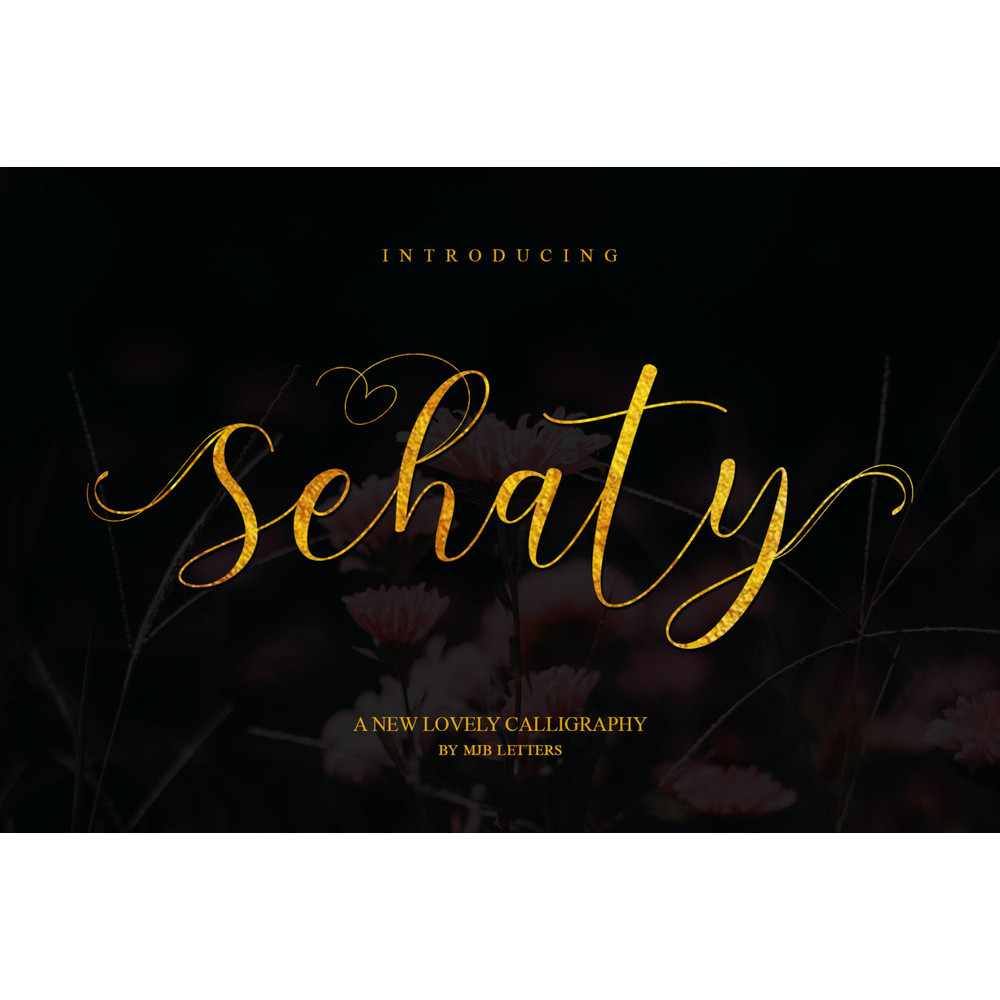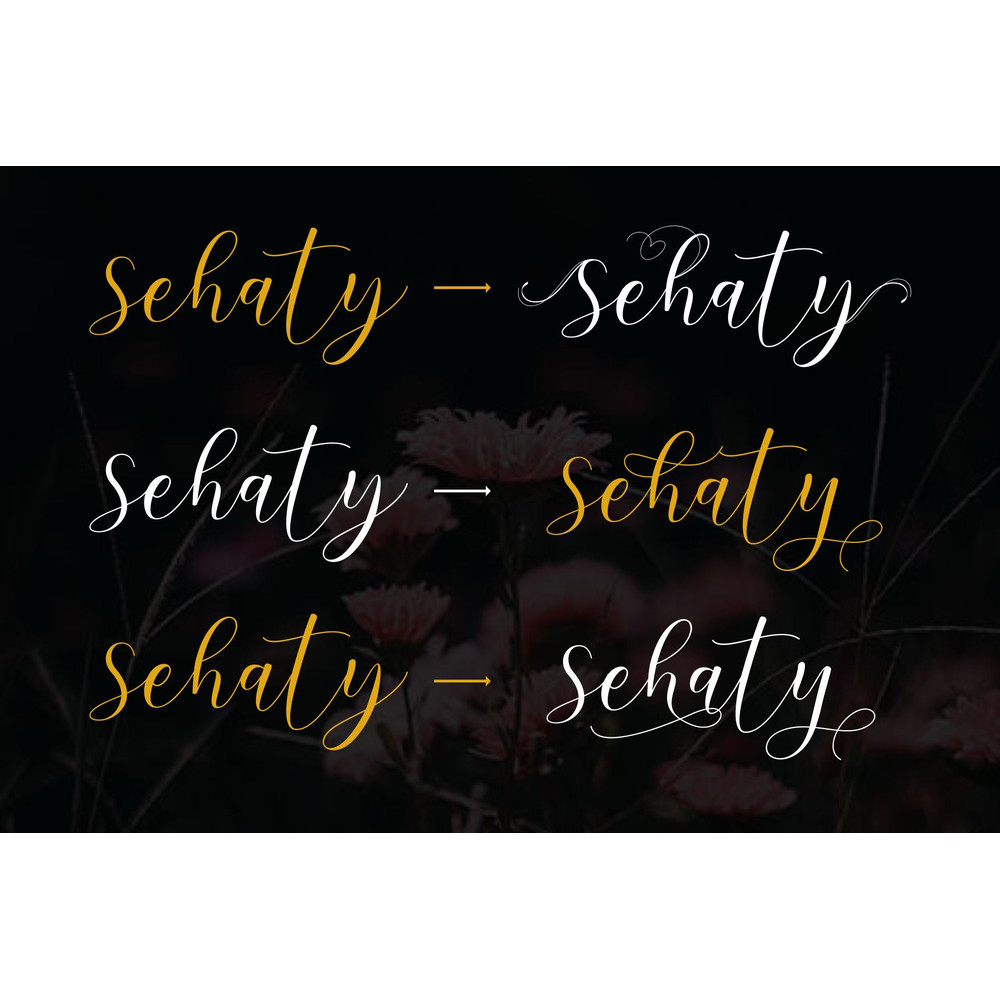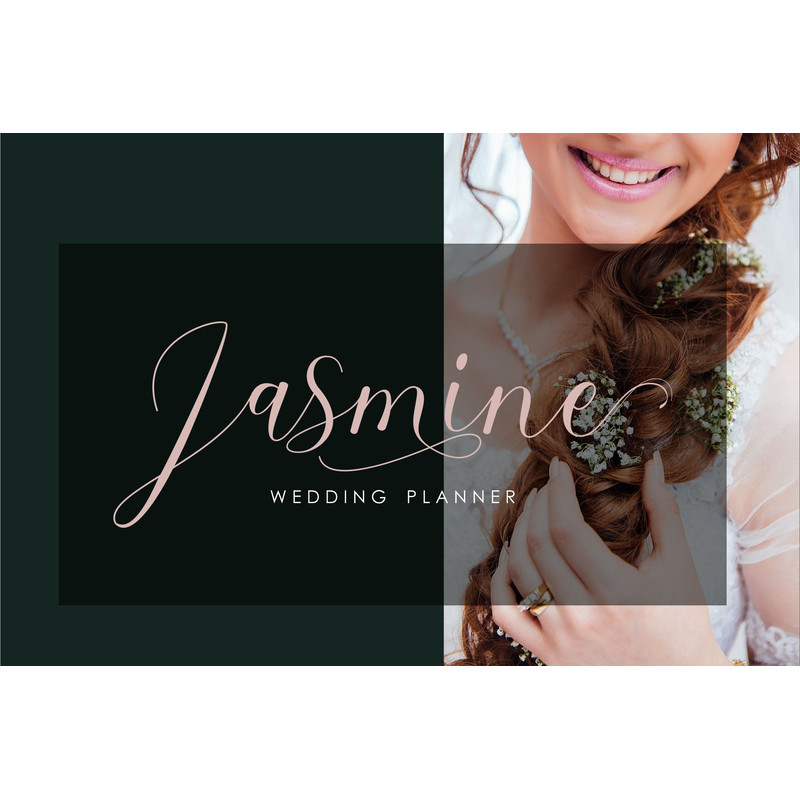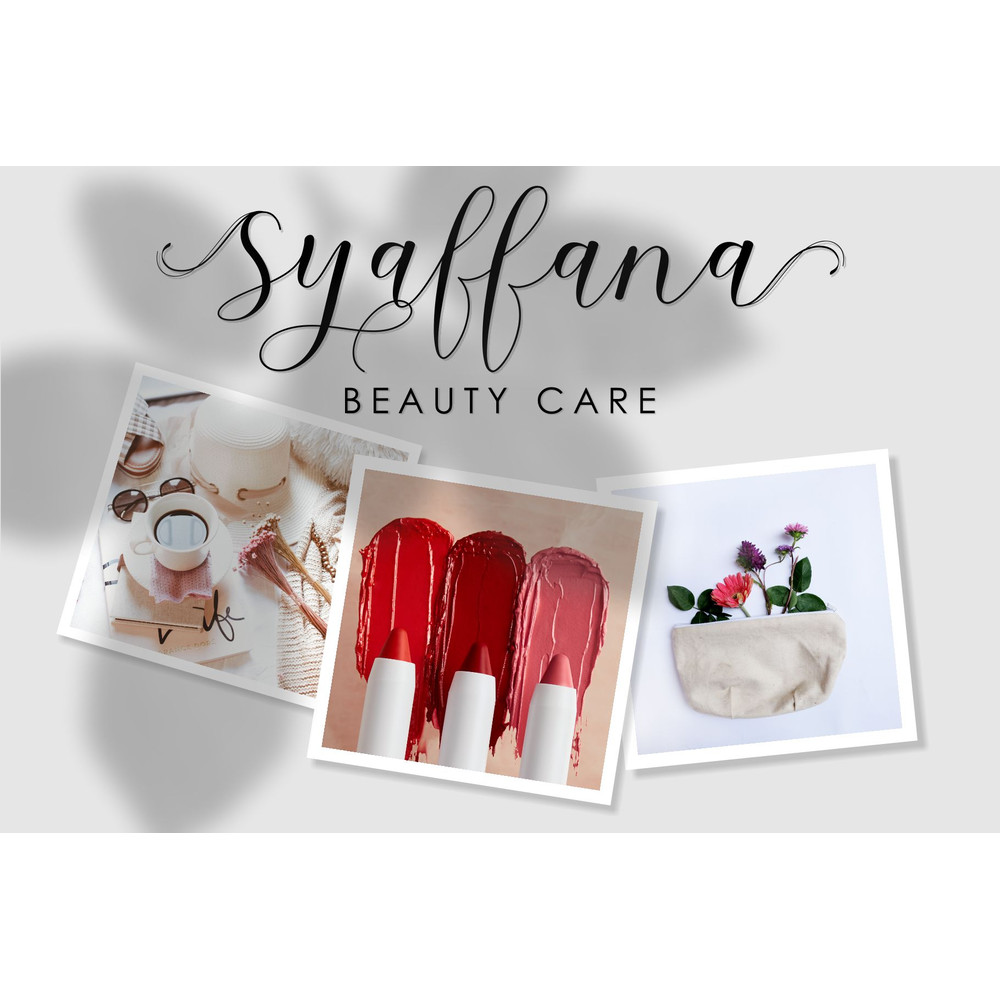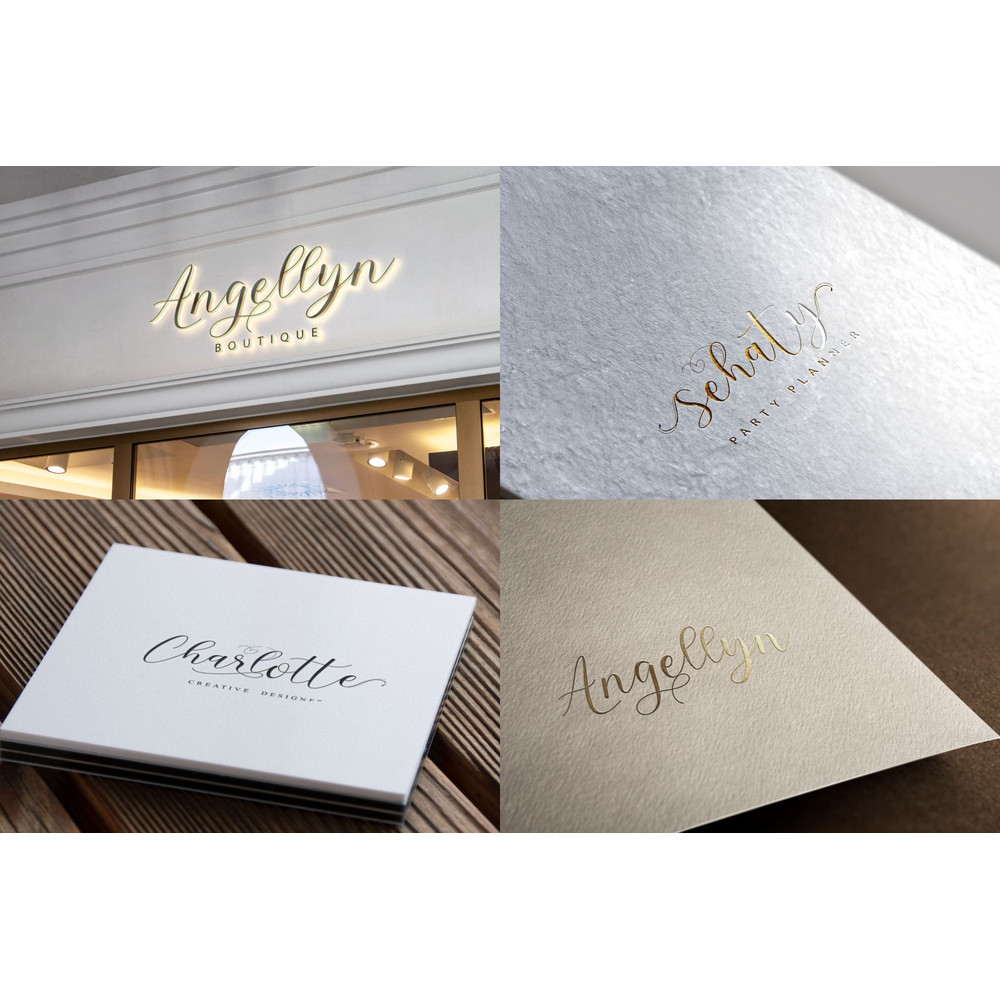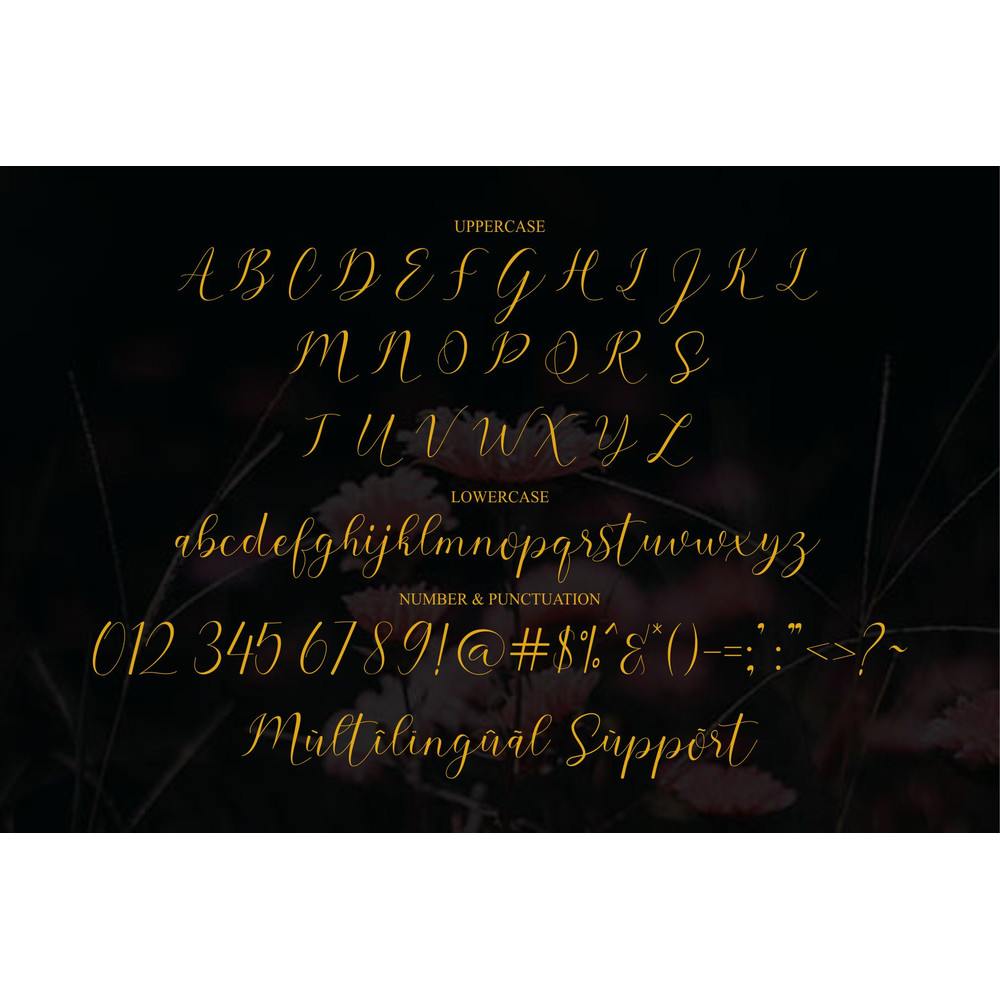
Introducing the sehaty Script Font, built with OpenType features and includes beginning and ending swashes, numbers, punctuation, alternates, ligatures and it also supports other languages.